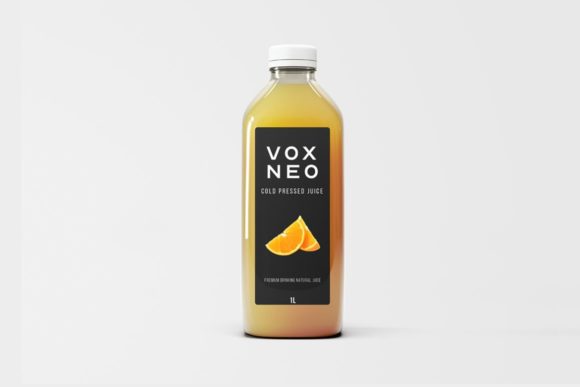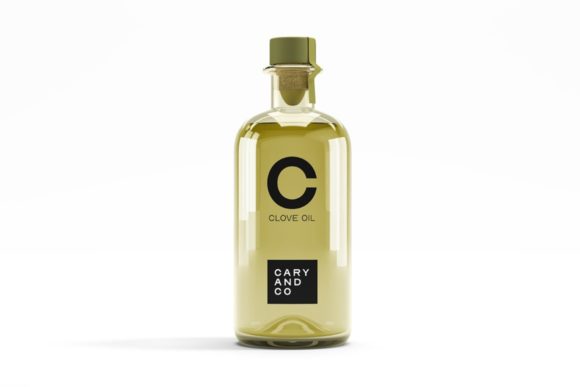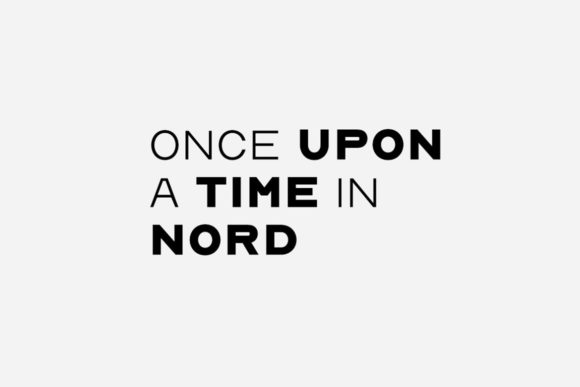
Introduction to Malstrom Font
Malstrom is a clean and modern looking display font.
Add this minimalist and techno styled font to your web designs, logos or pretty much anything that requires a smart, cool touch .
Key Features of Malstrom Font
Why Choose Malstrom Font?
Malstrom Font offers exceptional quality and versatility, making it a valuable addition to your design toolkit. Whether you’re creating for personal projects or commercial use, Malstrom Font delivers professional results.